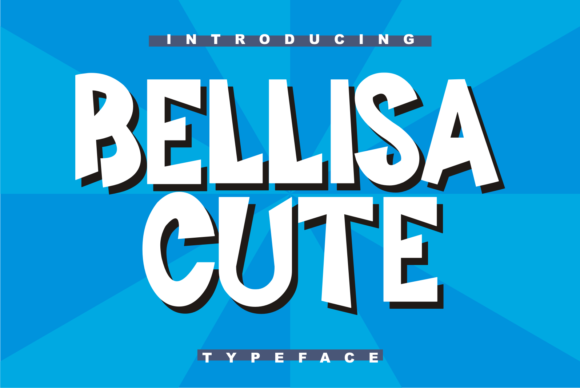
Are you tired of your plain and boring resignation letters? It's time to make a bold statement with Bellisa Cute Font, the ultimate display font for unforgettable expressions!
Bellisa Cute's thick, captivating letters command attention, turning your words into a visual masterpiece. Its clean lines and striking simplicity create an undeniable impact that will leave a lasting impression.
Whether you're crafting a heartfelt letter of resignation or expressing your creativity in personal projects, Bellisa Cute is the perfect choice for making your creations stand out. Embrace the power of this remarkable font and watch your words transform into a breathtaking display of style and confidence!